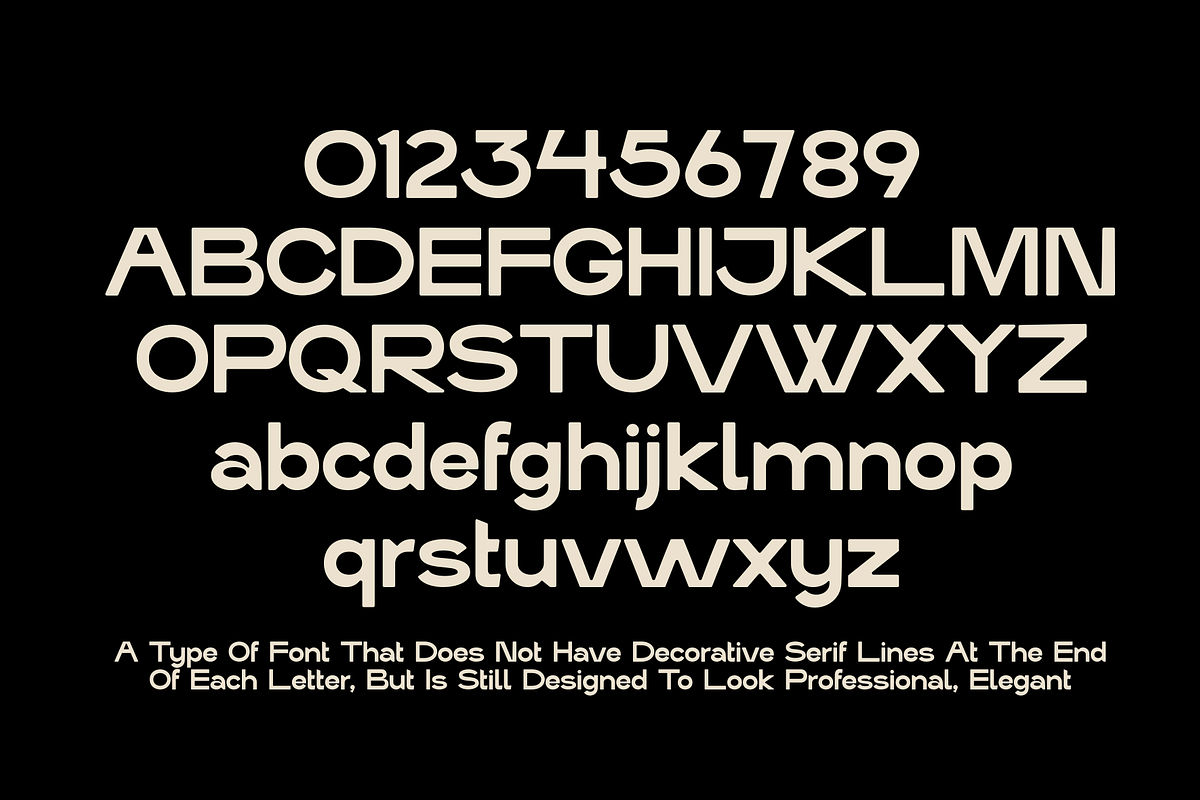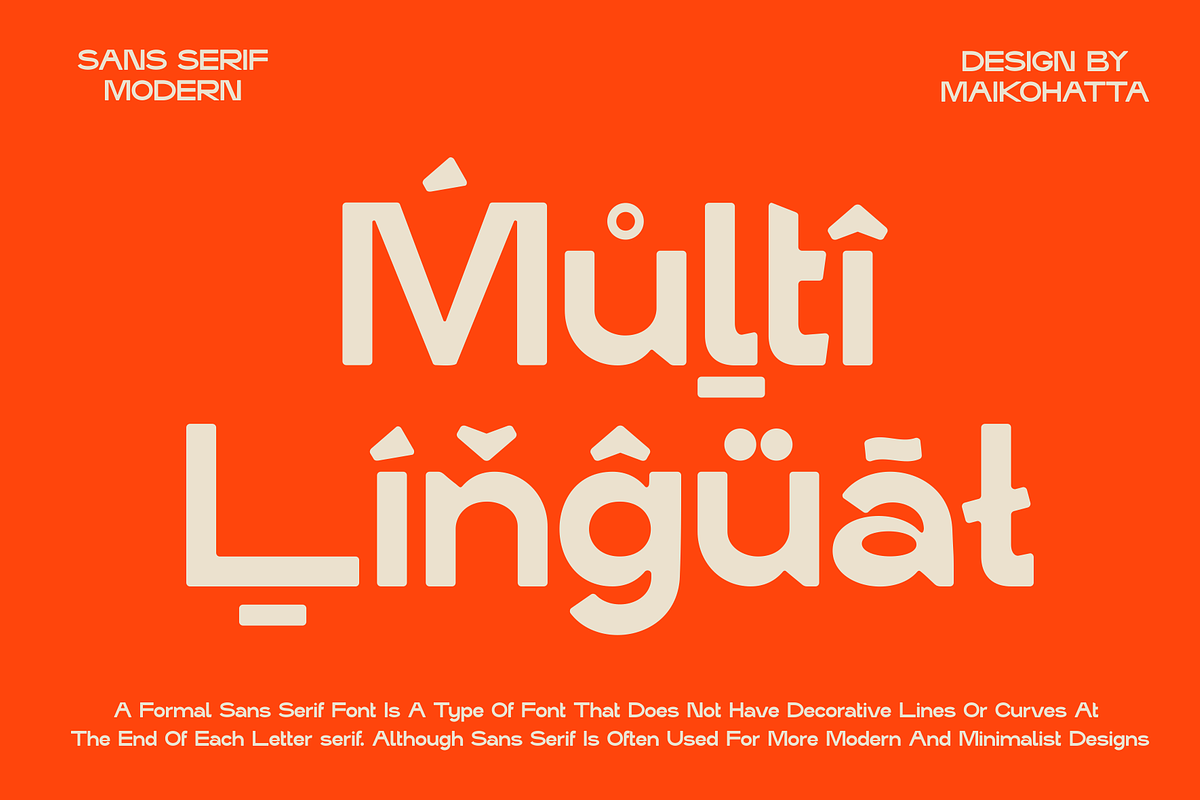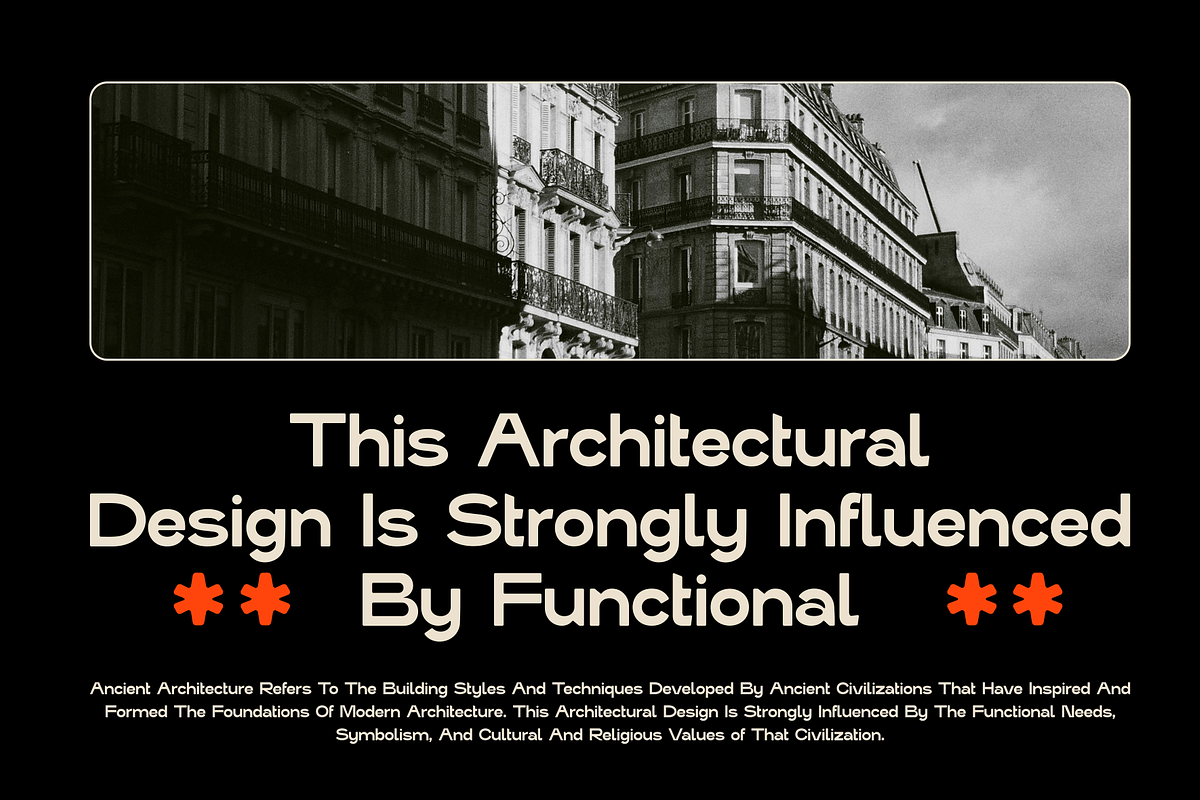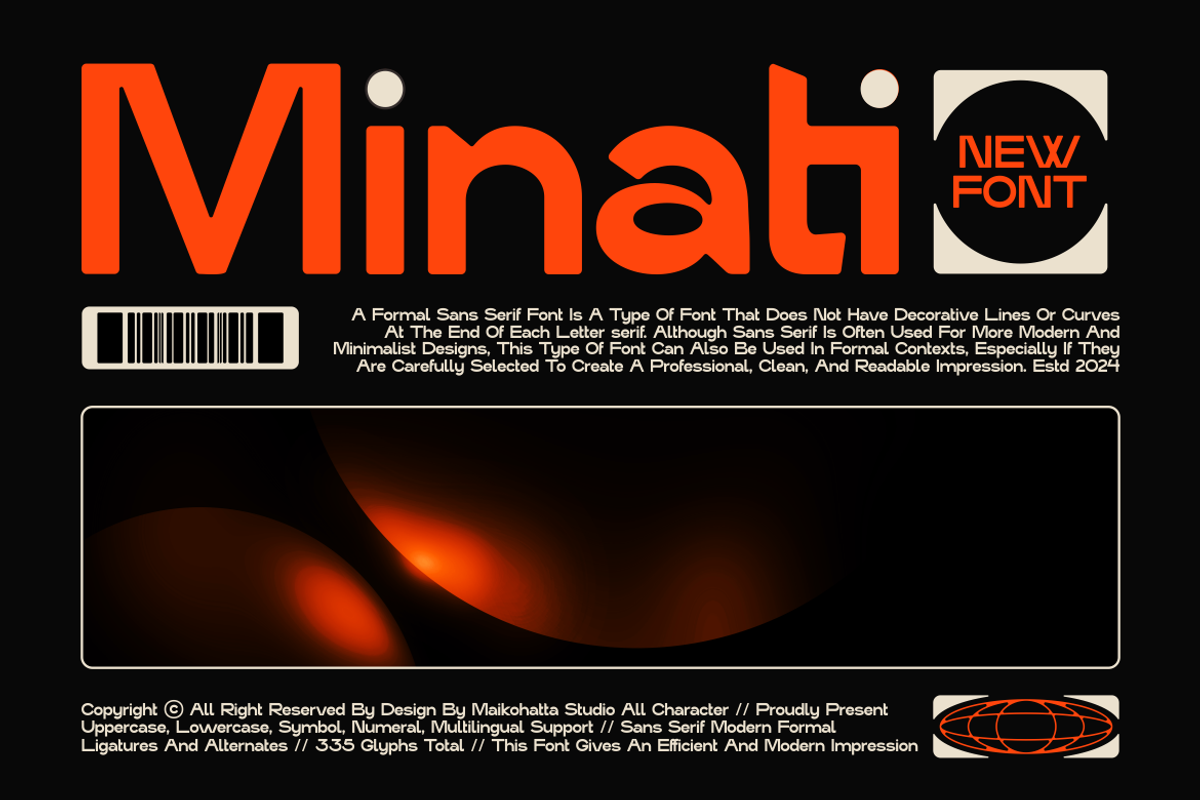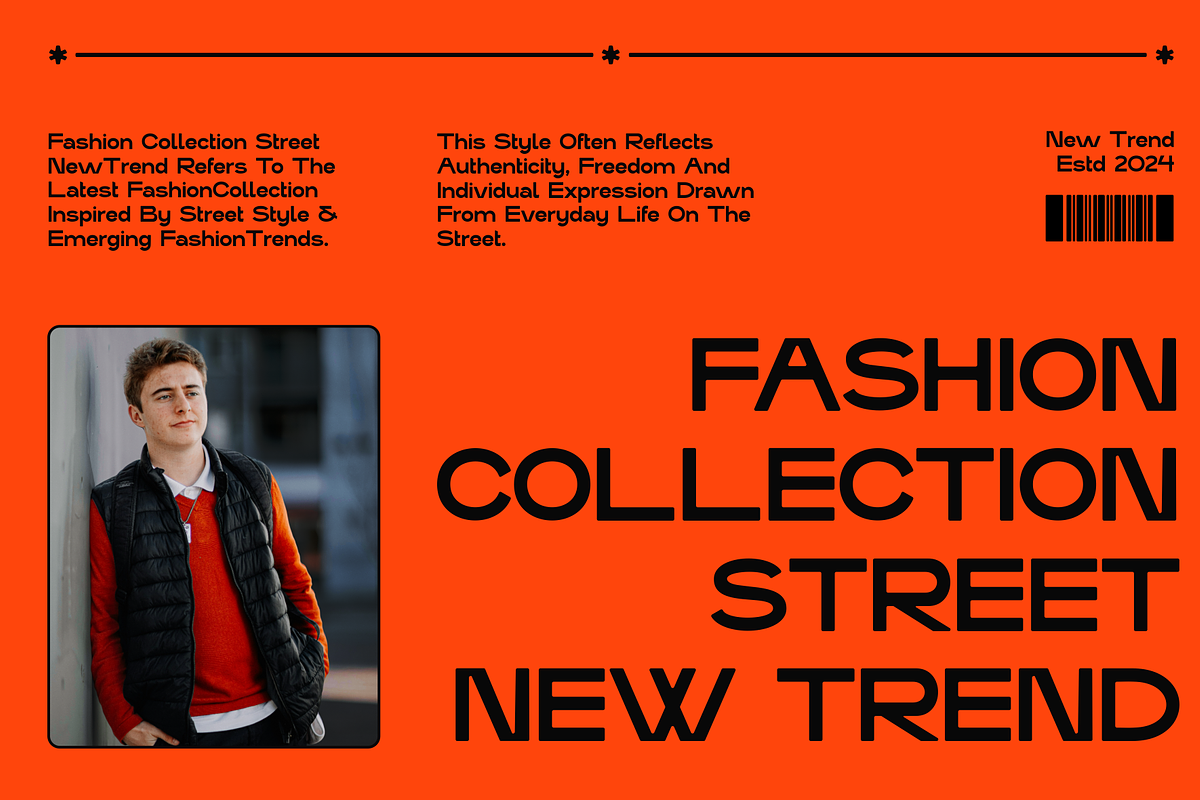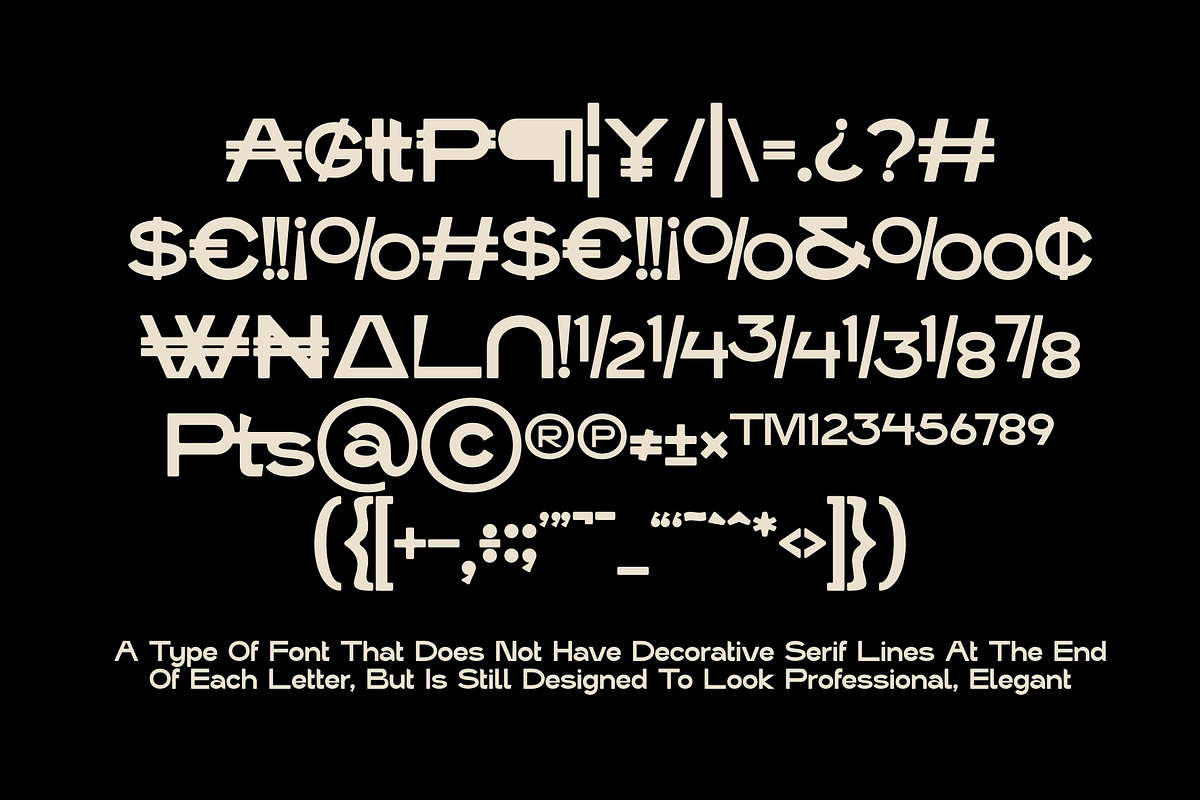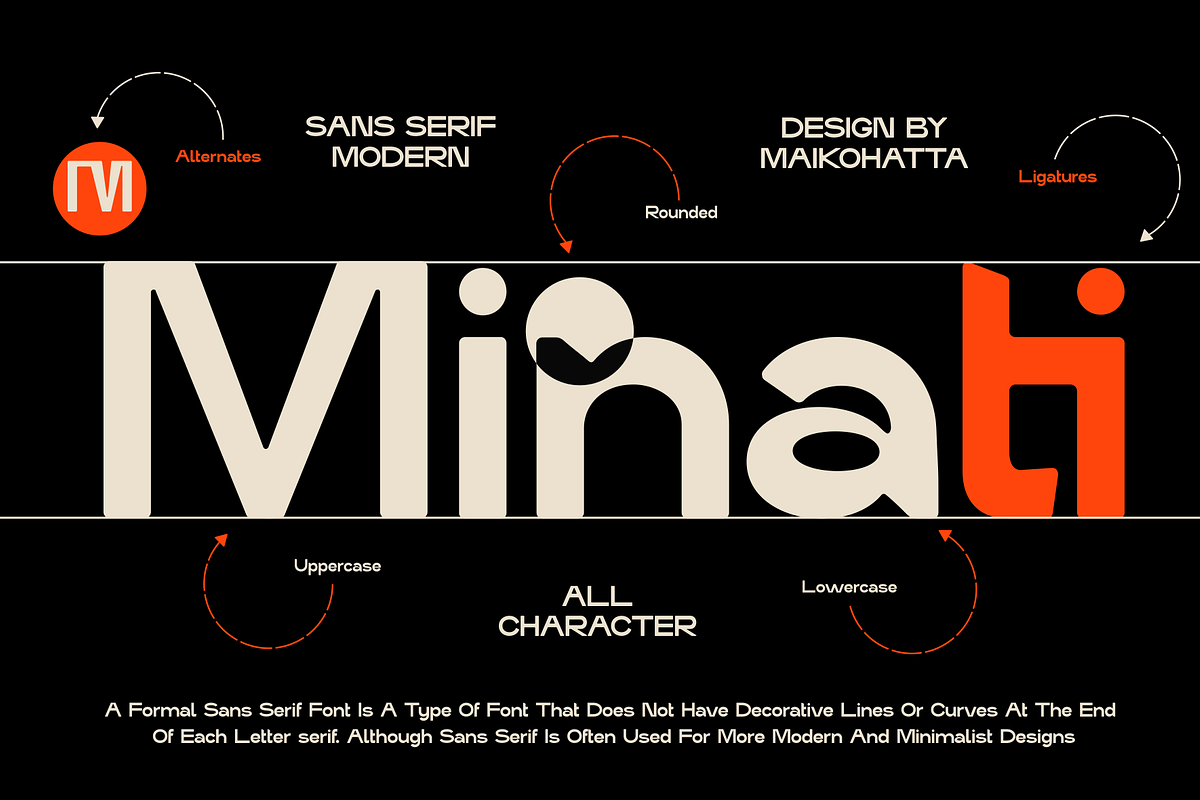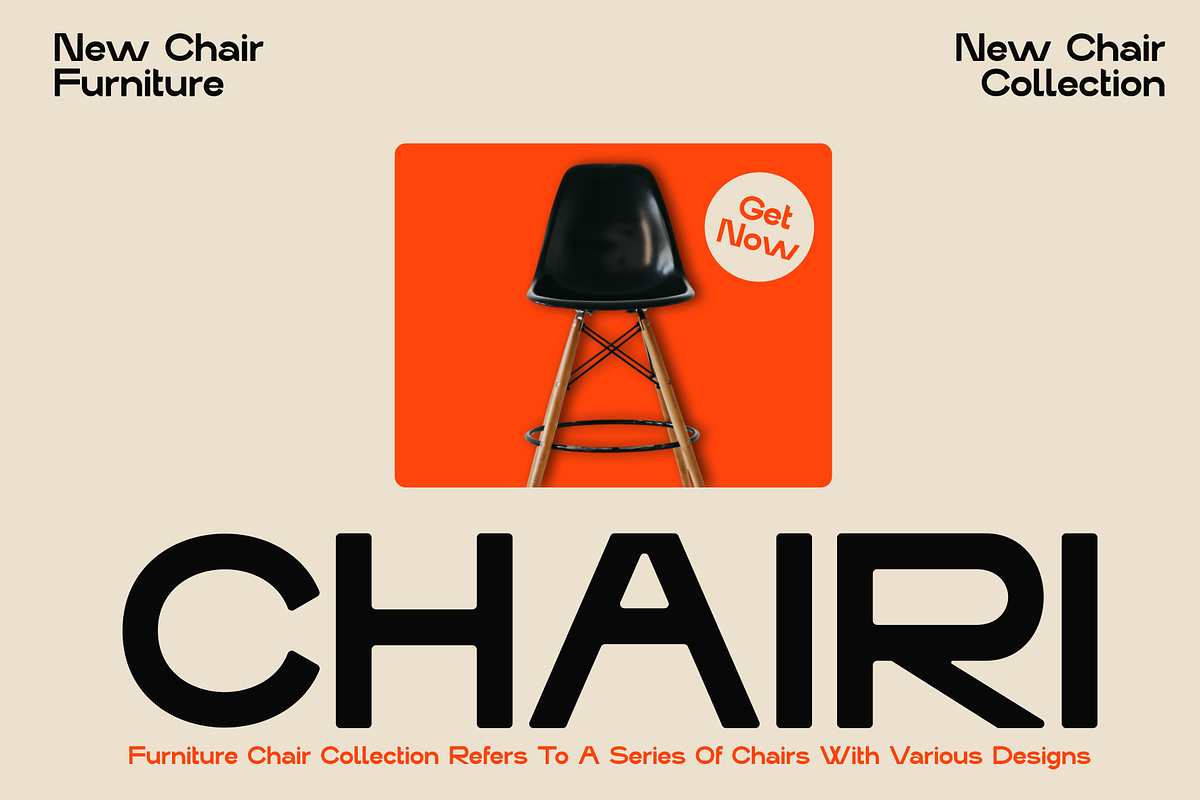
Minati - Modern Sans Serif Font
Introducing our new product Minati - Modern Sans Serif Font
This Font is a very flexible choice and can be used in a variety of design contexts. Its ability to provide a clean, professional, contemporary look and its simplicity and visual appeal make this font good for use in the world of graphic design and modern typography.